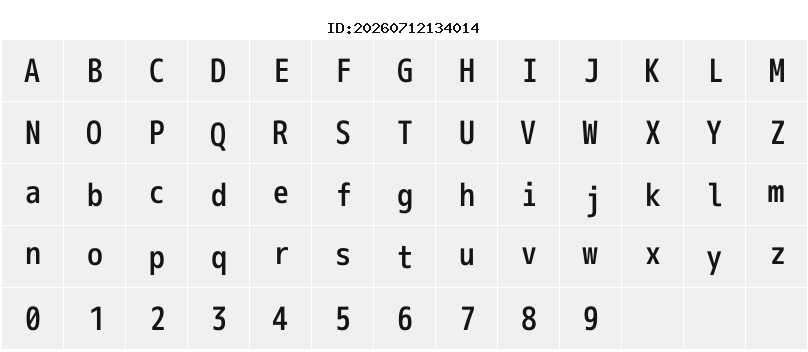
M+ 1m Preview
• Font Name: M+ 1m
• Font Style: medium
• Full Font Name: M+ 1m medium
• PostScript Name: mplus-1m-medium
About M+ 1m.ttf
M+ 1m.ttf is a modern, elegant sans-serif font designed for ultimate readability and visual harmony. Perfect for branding, headlines, web design, and print materials.